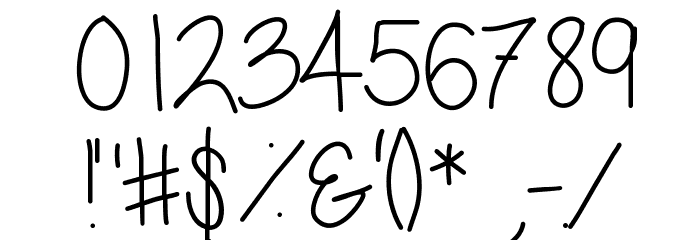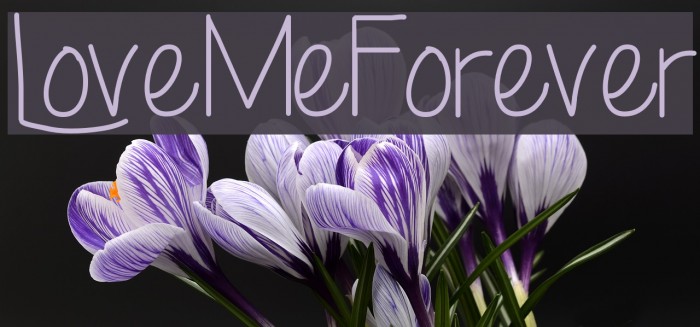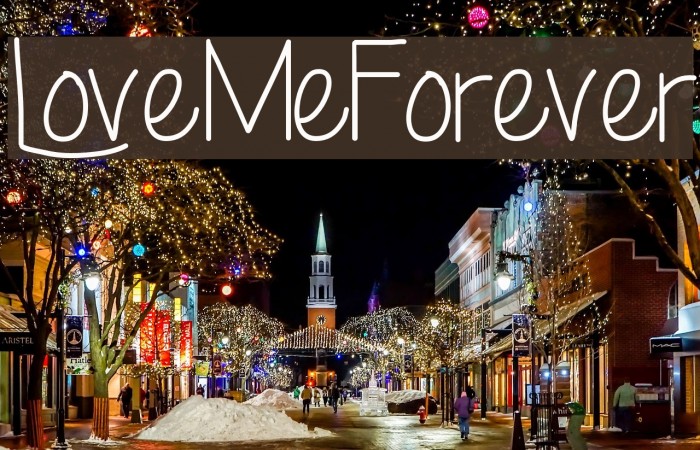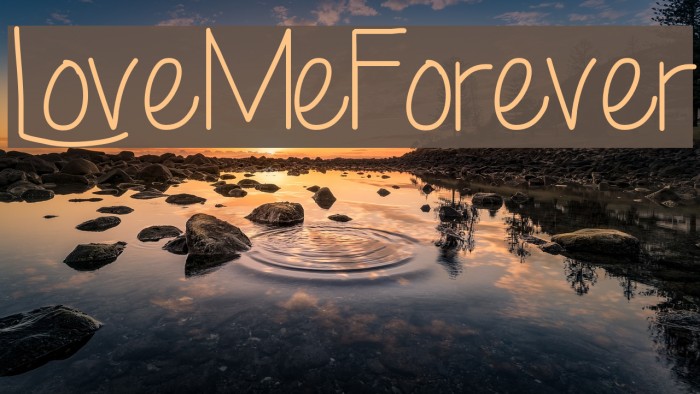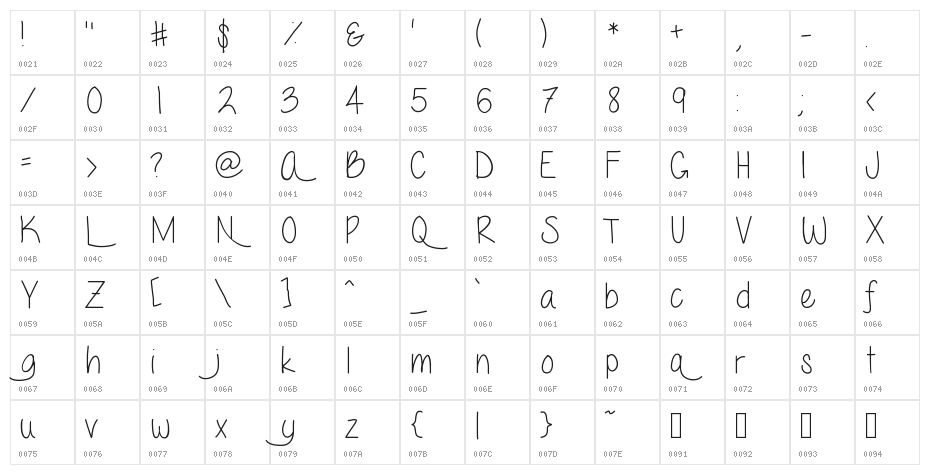
LoveMeForever Font
This font features a playful and casual handwritten style, characterized by its smooth, flowing lines and slightly irregular shapes. The uppercase letters are tall and narrow, with a whimsical touch that adds personality. The lowercase letters maintain a consistent style, with rounded edges and a friendly appearance. Numbers and special characters follow the same playful aesthetic, making the font versatile for various creative projects. The overall look is approachable and informal, perfect for conveying warmth and friendliness.
A playful, handwritten font with smooth, flowing lines and a casual style.
- Proposed Projects: Ideal for greeting cards, personal invitations, children's books, and playful branding.
- Overall Style: Casual
- Use Case: Headlines, Invitations, Branding